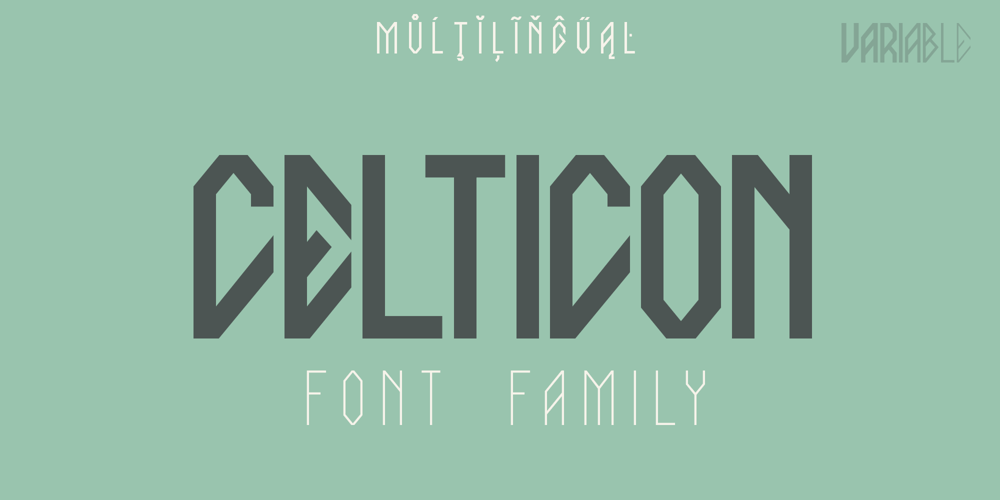
Celticon Font Family was designed by Dmytro Poliakh and published by Sentavio. Celticon contains 4 styles and family package options. Celticon Font Family create ancient celtic magic vikings’ myths and gothic atmosphere and style.It is good looking as header and as text both. Celticon Font Family consists of three weights: Light, Regular and Bold + Variable version.